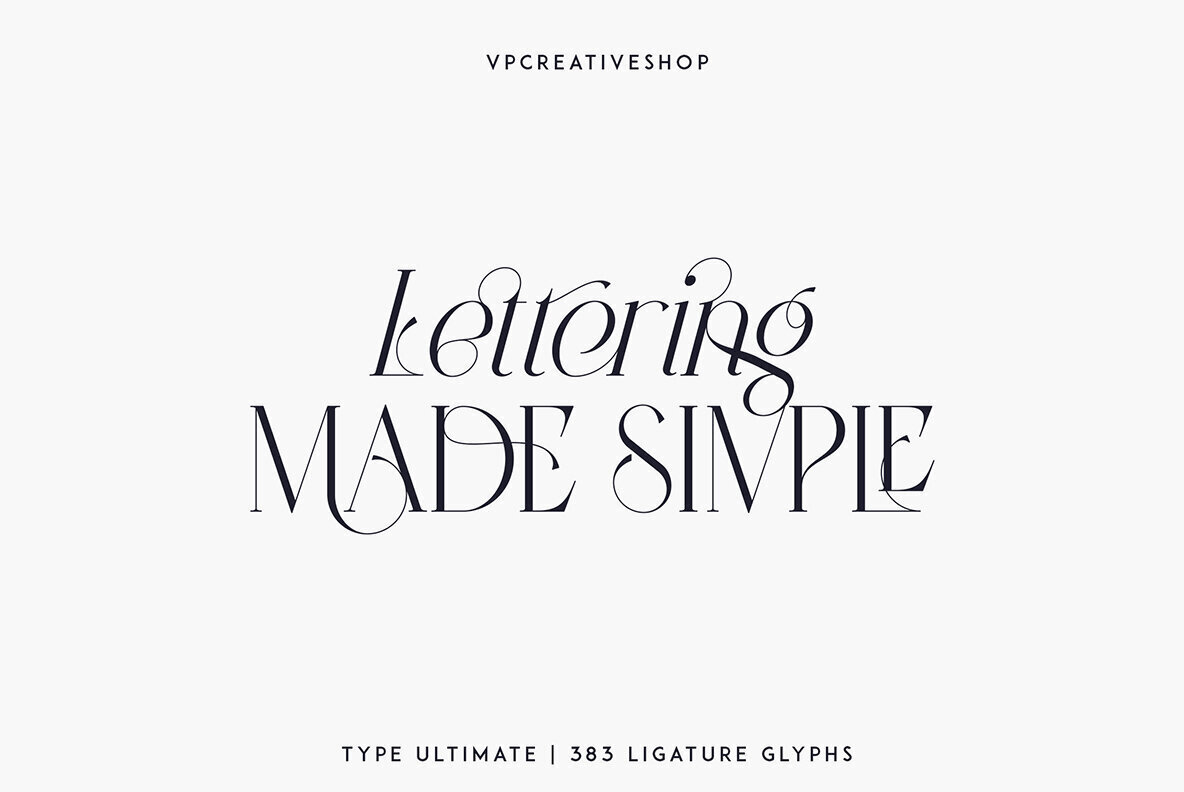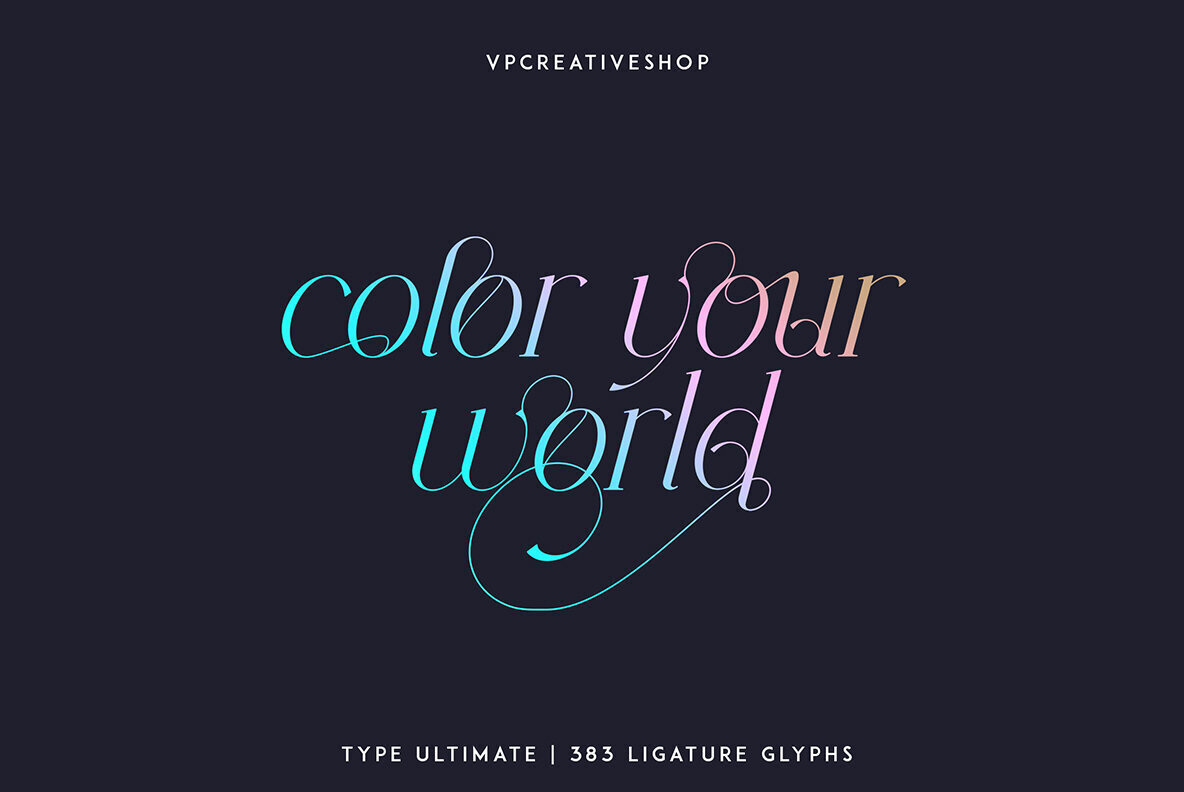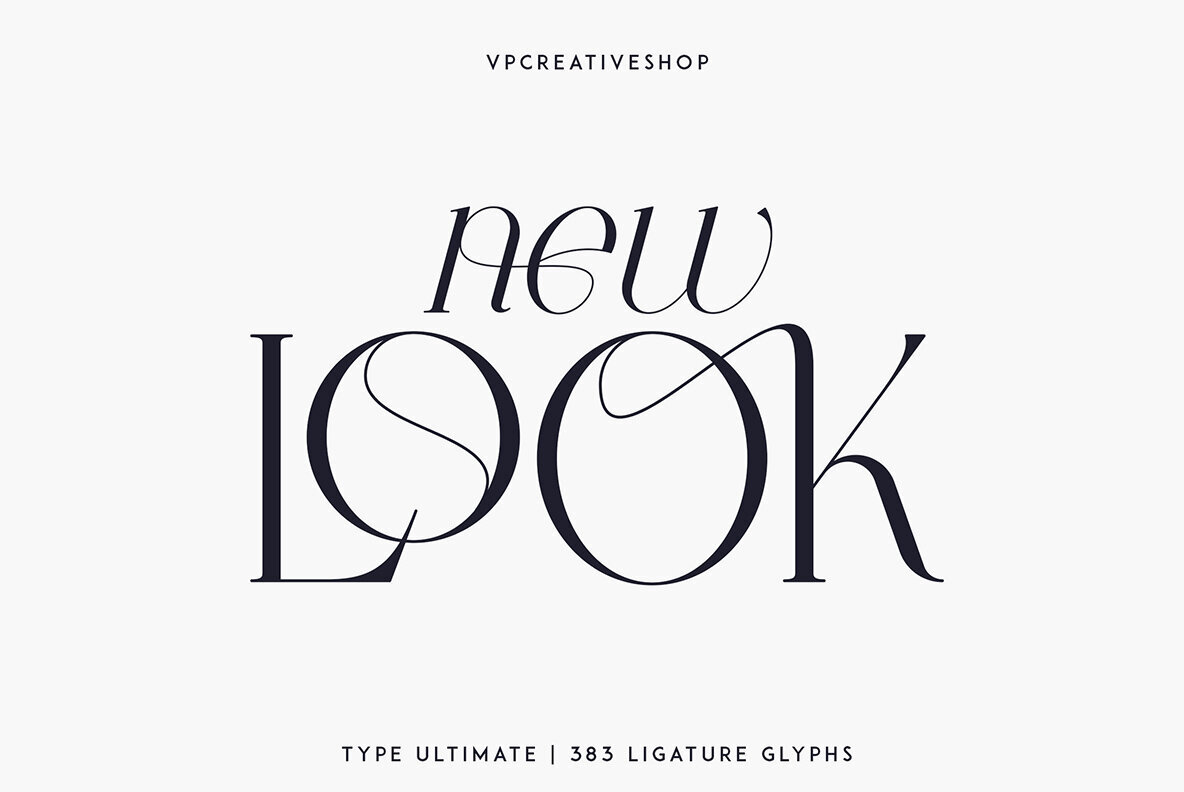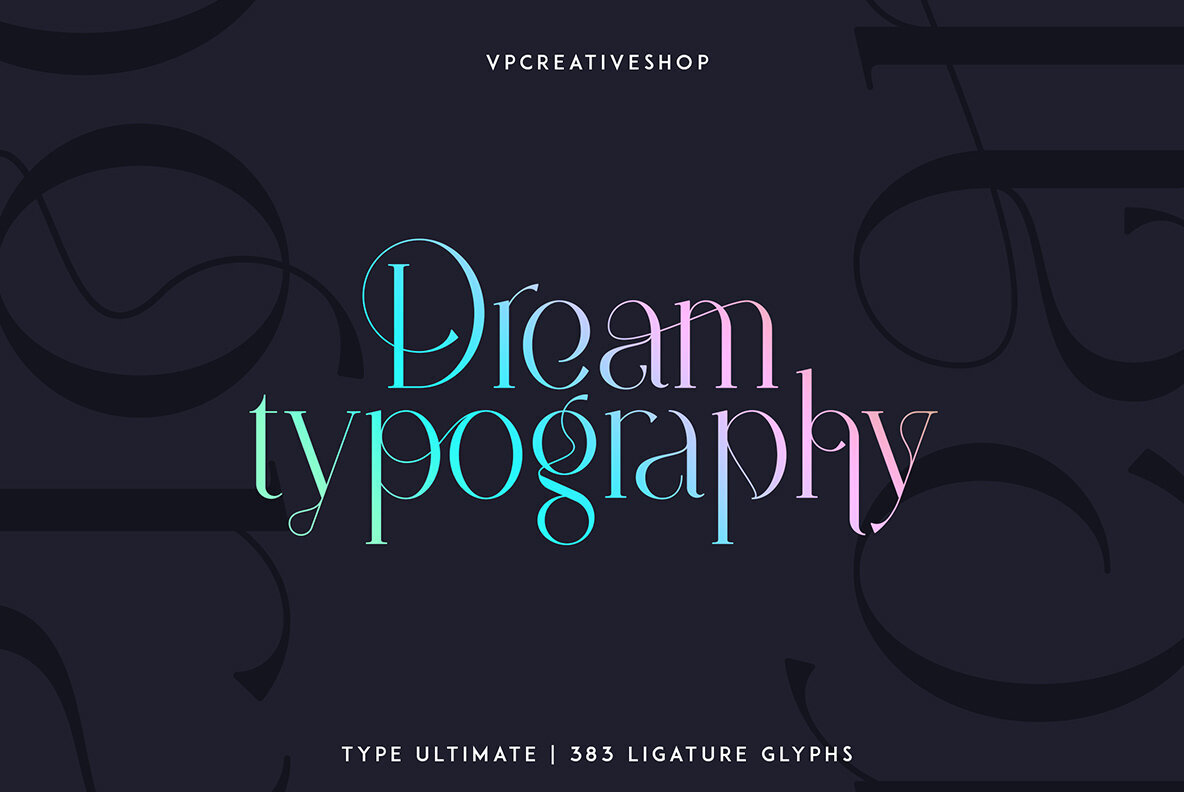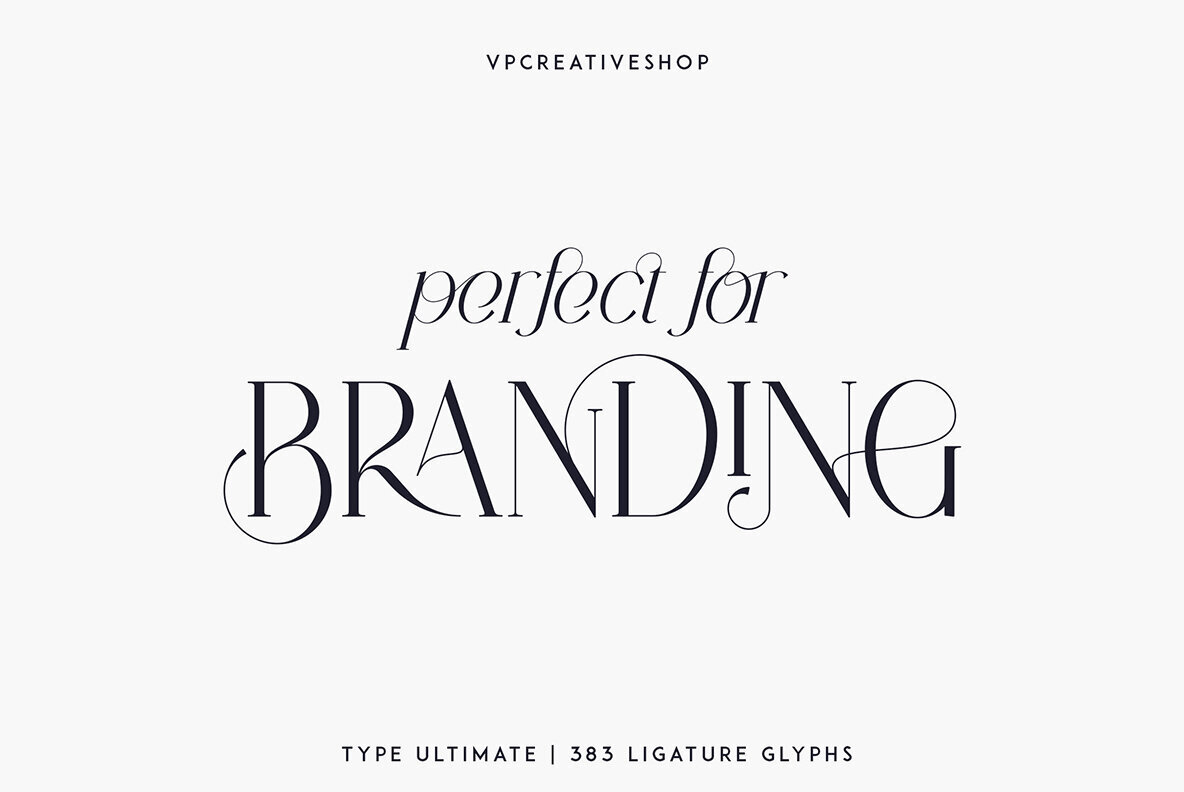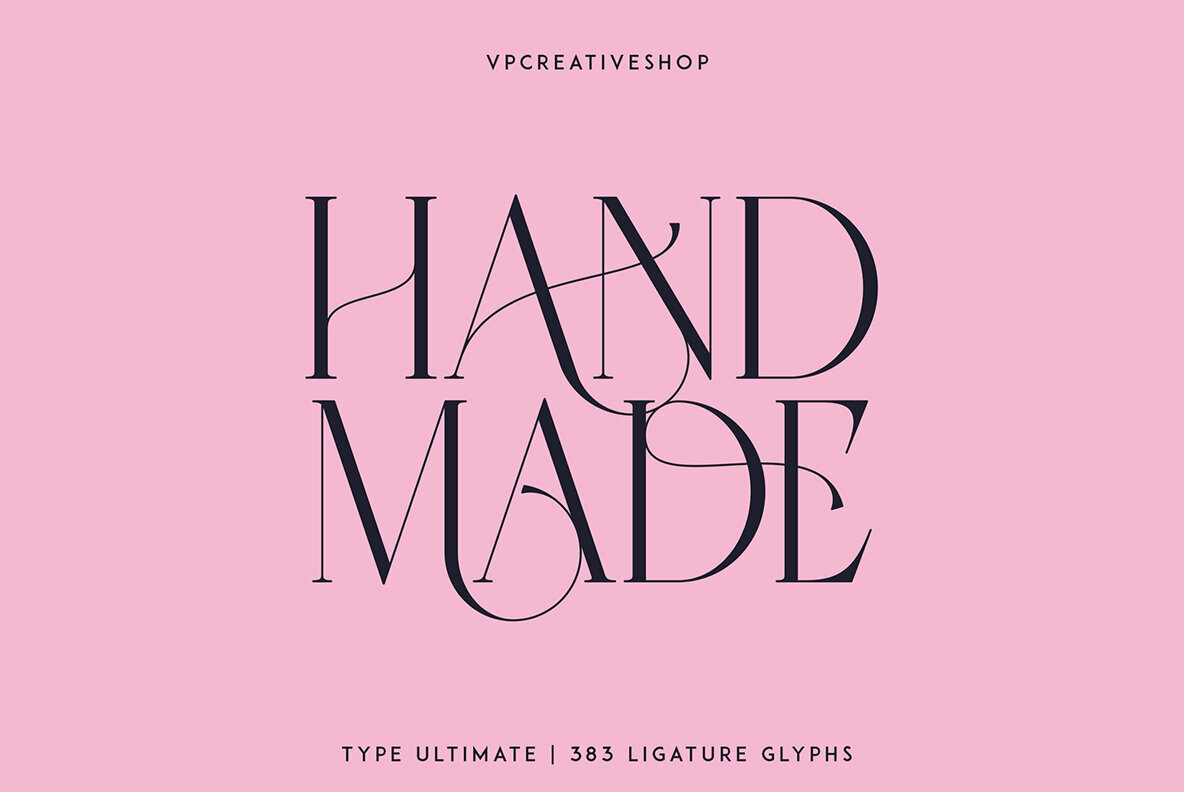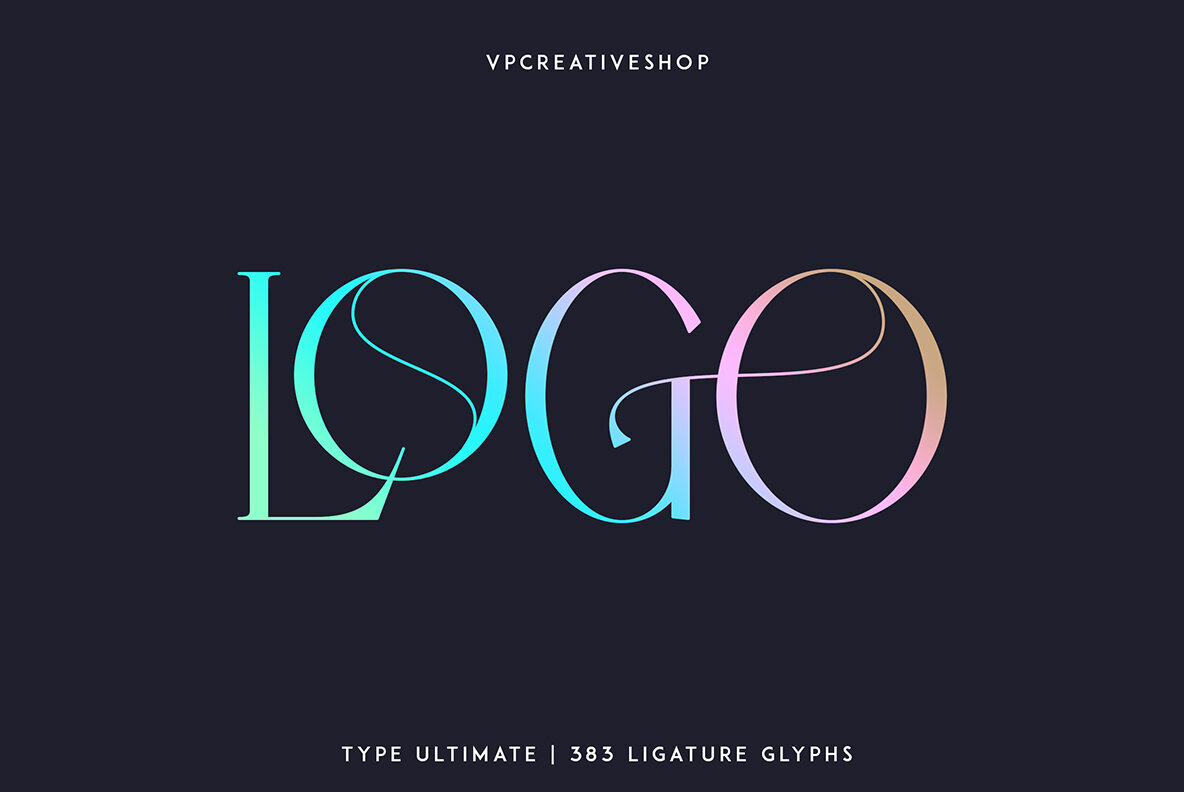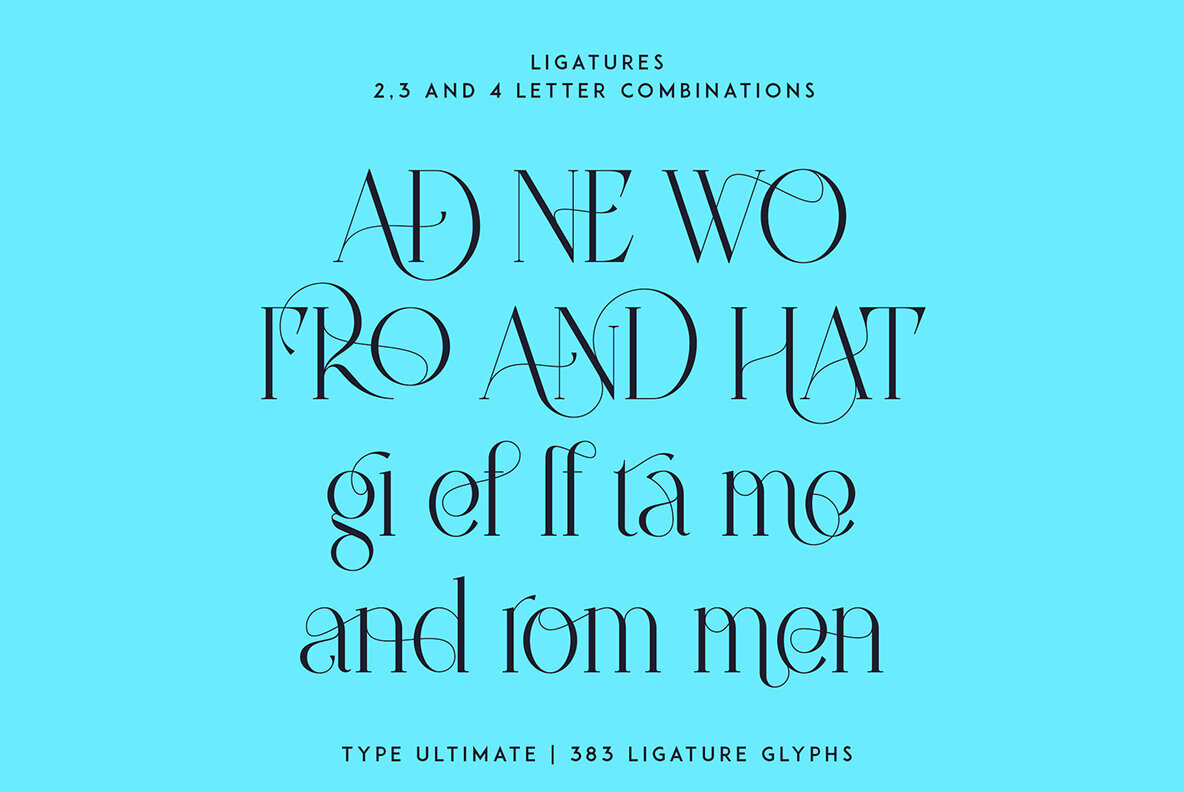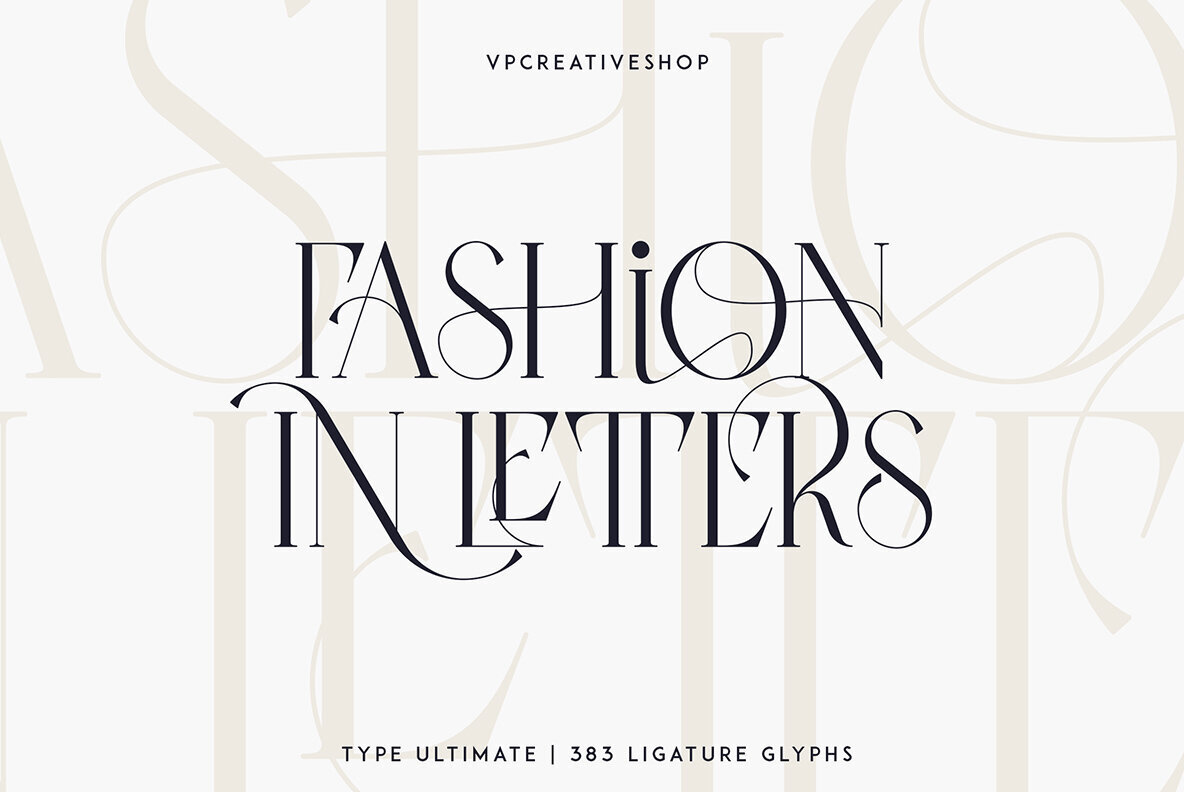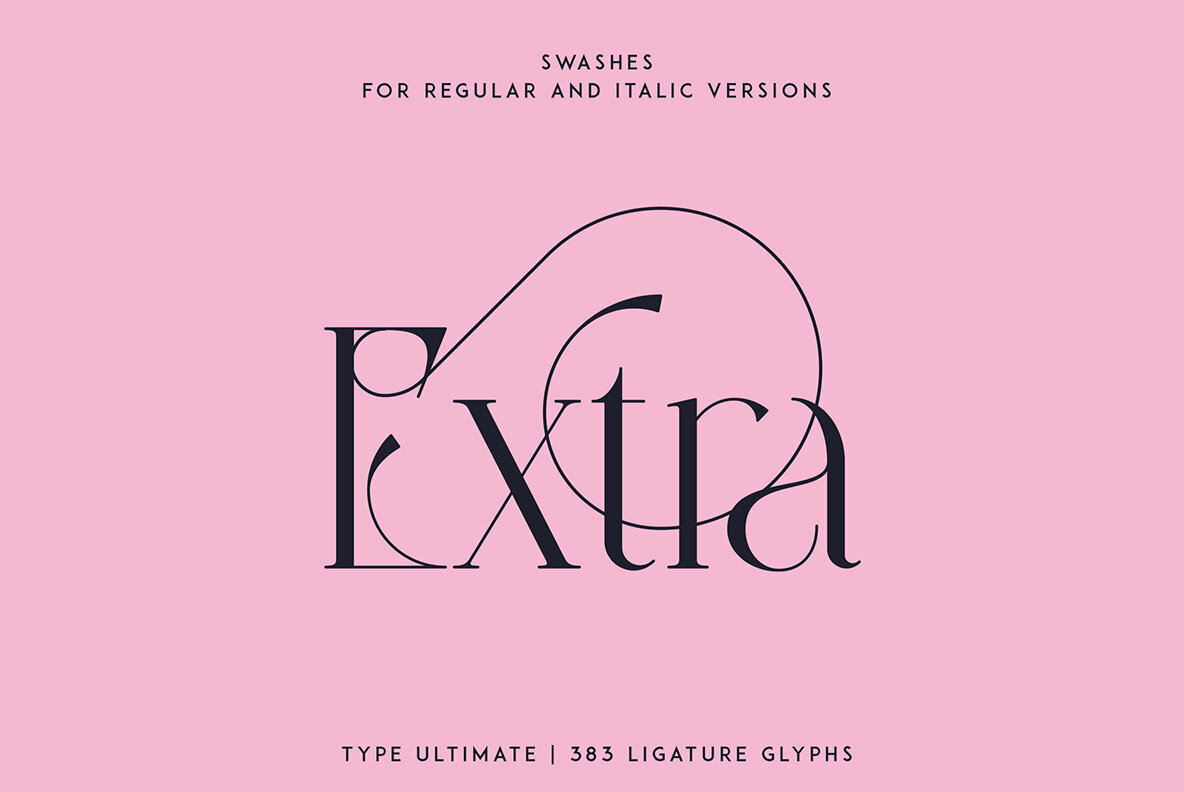
Type Ultimate Font
Type Ultimate is an exquisite serif font that combines elegance and sophistication. It comes in regular and italic versions, each containing a stunning collection of 383 ligature glyphs and alternate glyphs, as well as 26 swashes for both regular and italic versions. With its extensive character set, Type Ultimate supports a wide range of languages, making it a versatile choice for various projects. This font is perfect for creating a memorable logo, establishing a strong brand identity, and making headlines that stand out. Its timeless and refined design also makes it an excellent choice for elegant wedding invitations and other formal occasions. Overall, Type Ultimate is a font that exudes beauty and refinement, adding a touch of sophistication to any project it's used in.